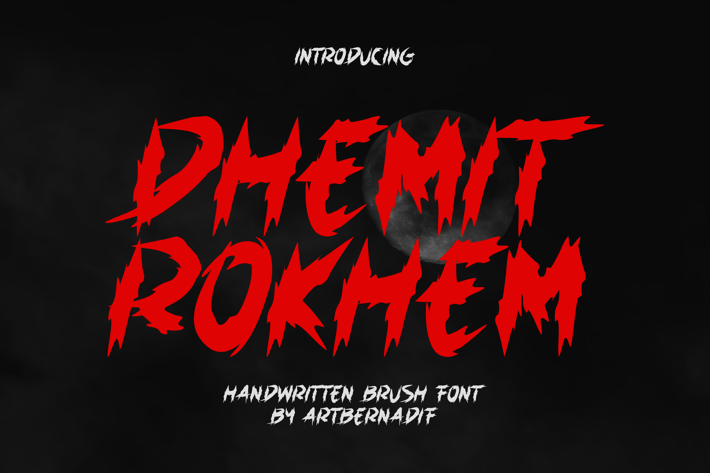
Dhemit Rokhem Font
Introducing our new product Dhemit Rokhem Font - Modern Font
Dhemit Rokhem Font- Modern Font is a bold and authentic display font. The font is suitable for any branding project like logo, t-shirt printing, esport, and many more. outstanding in a wide range of contexts.